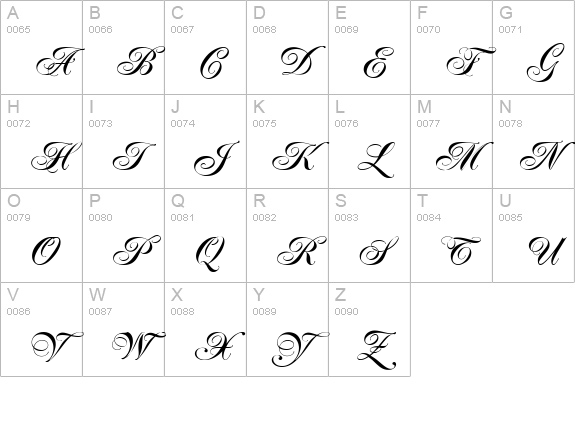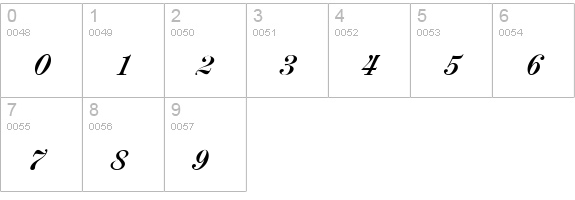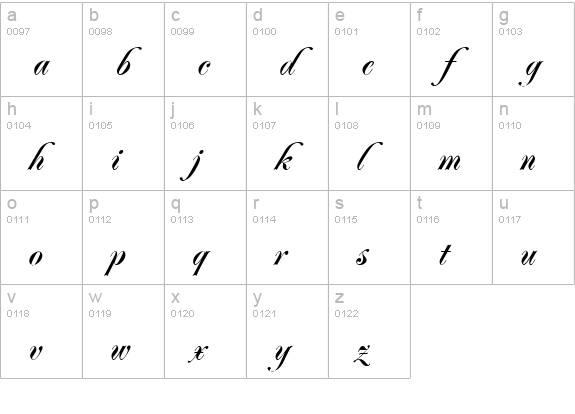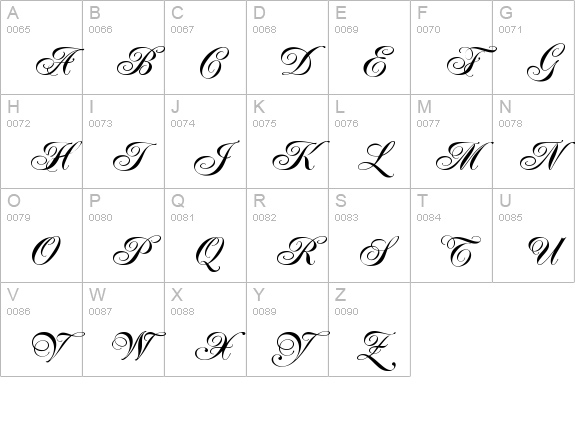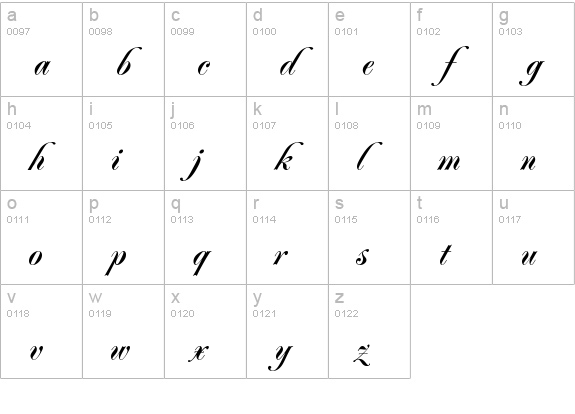
Poppl-Residenz (R) Regular Font Details
Poppl-Residenz (R) Regular font is a classic and elegant typeface that exudes sophistication and style. With its clean lines and timeless design, this font is perfect for a wide range of projects, from branding to editorial design. The font features a balance of modernity and tradition, making it a versatile choice for any design application. Best of all, Poppl-Residenz (R) Regular font is freely available to download at FontsMarket.com. Whether you are a professional designer or a hobbyist looking to elevate your projects, this font is a must-have addition to your font library. Don't miss out on the opportunity to add this beautiful and versatile font to your collection today!